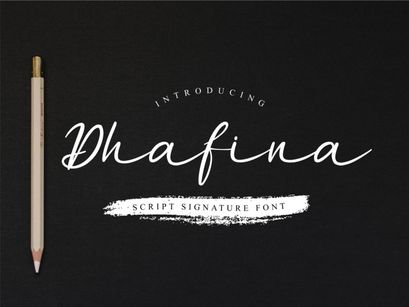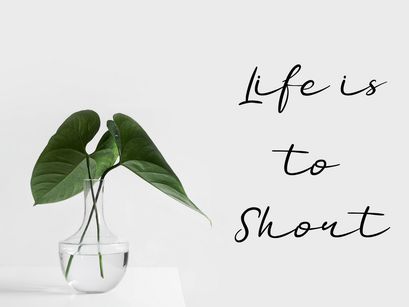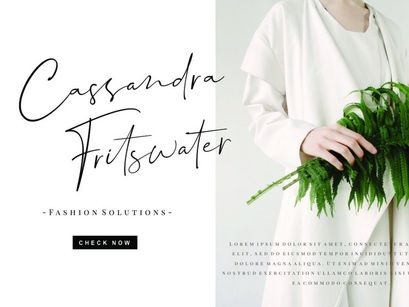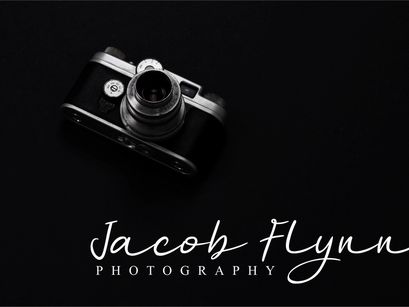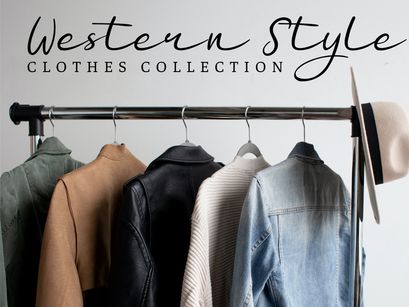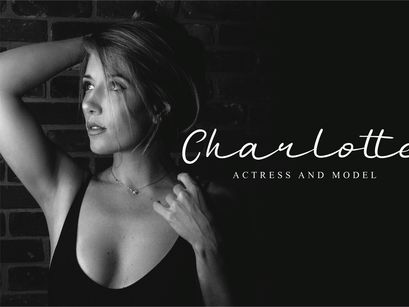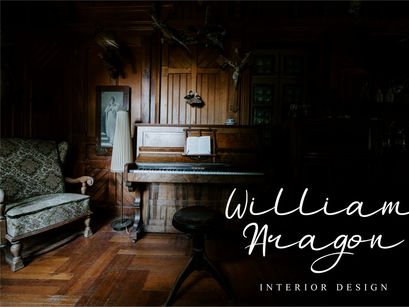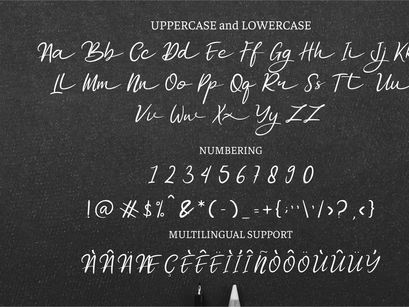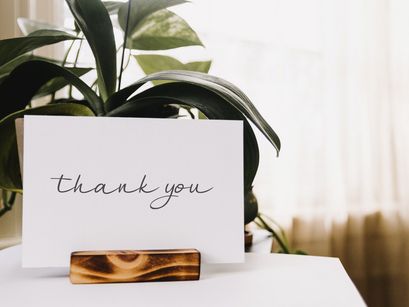
Dhafina is signature handwritten font. It has elegant, very delicate and classy look. This font was designed
to enhance the beauty of your project like quotes, fashion website, headline, branding and many more.